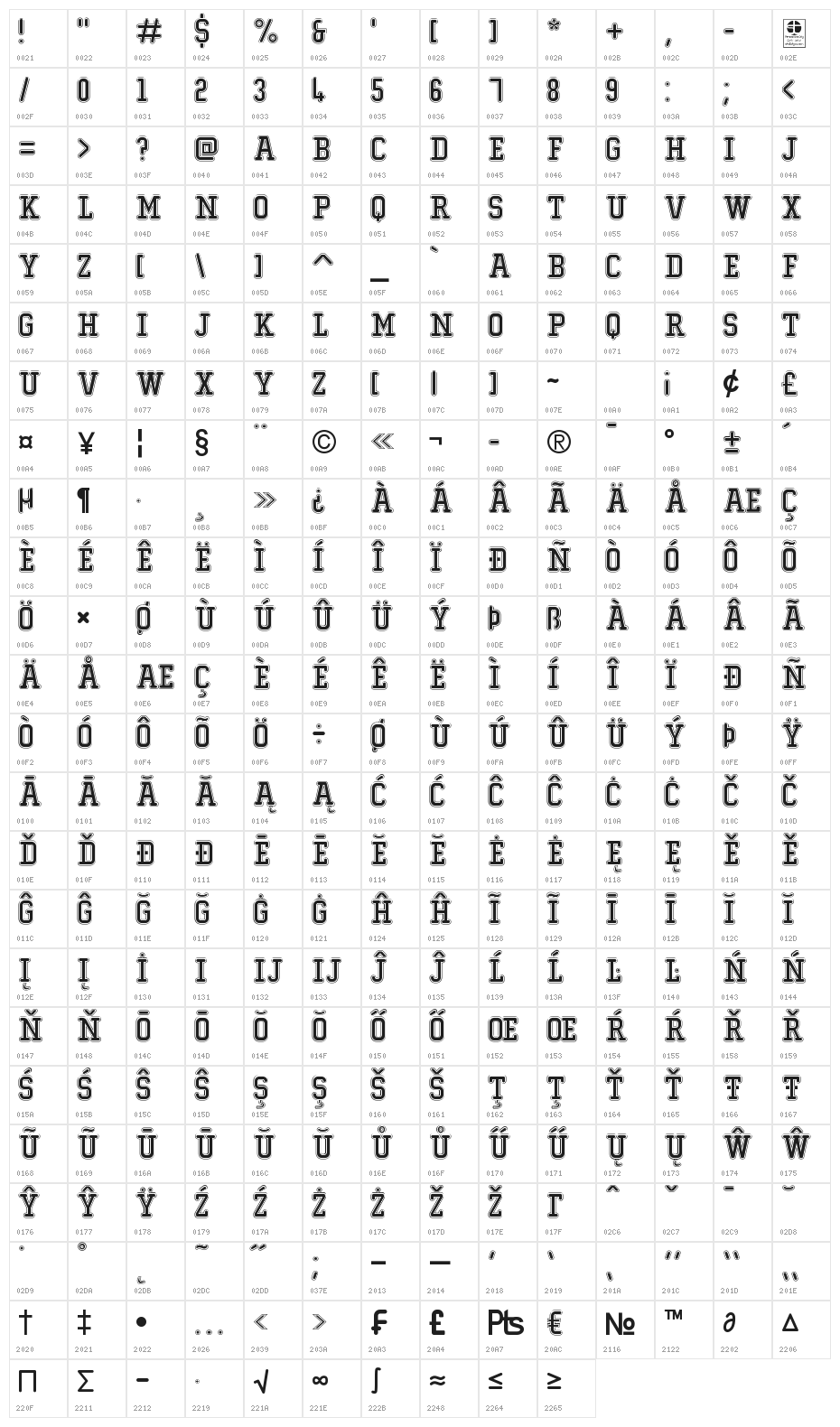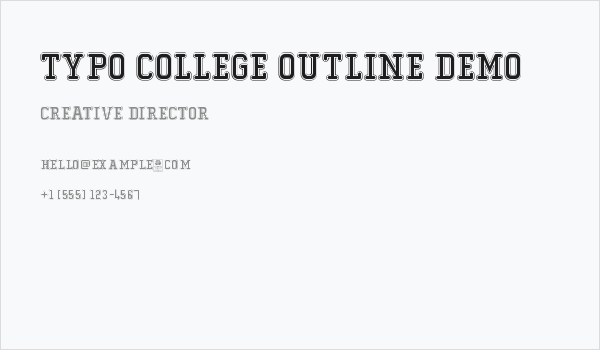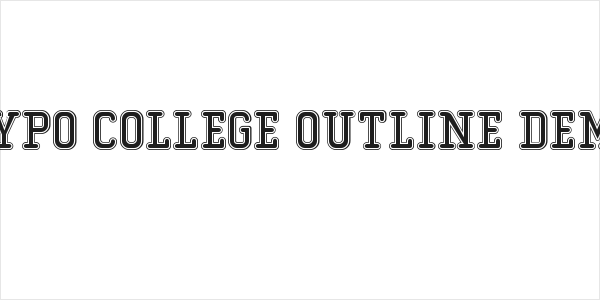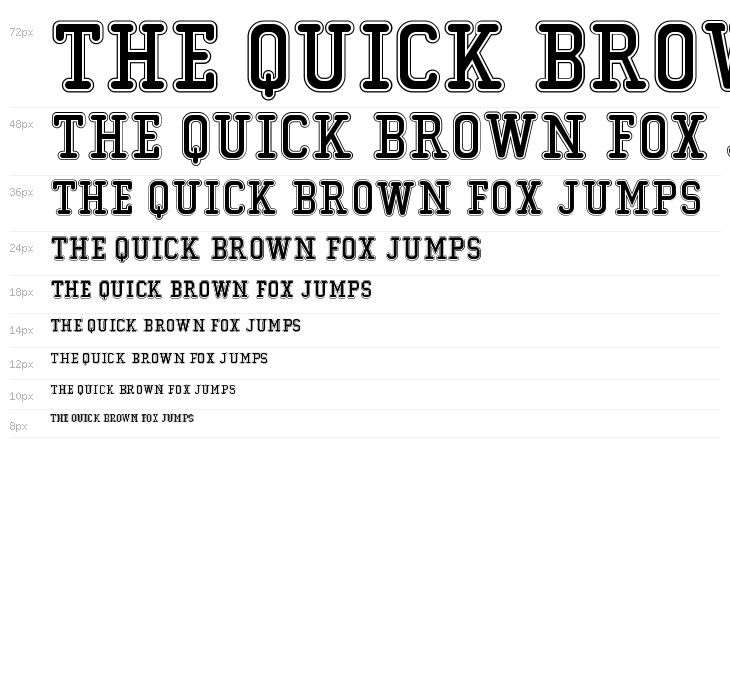
Typo College Outline Demo Font
Typo College Outline Demo Description
This font features a bold, collegiate style with a distinct outline that gives it a strong and impactful appearance. The uppercase and lowercase letters maintain a consistent structure, with clean lines and a uniform width that enhances readability. The numbers and special characters are designed to match the boldness of the letters, making them suitable for various applications. The font's outline adds a layer of depth, making it stand out in any design. Its structured and formal look is reminiscent of traditional college or university branding, making it ideal for projects that require a sense of authority and tradition.
| Proposed Projects | Ideal for school branding, sports team logos, event posters, and merchandise designs. |